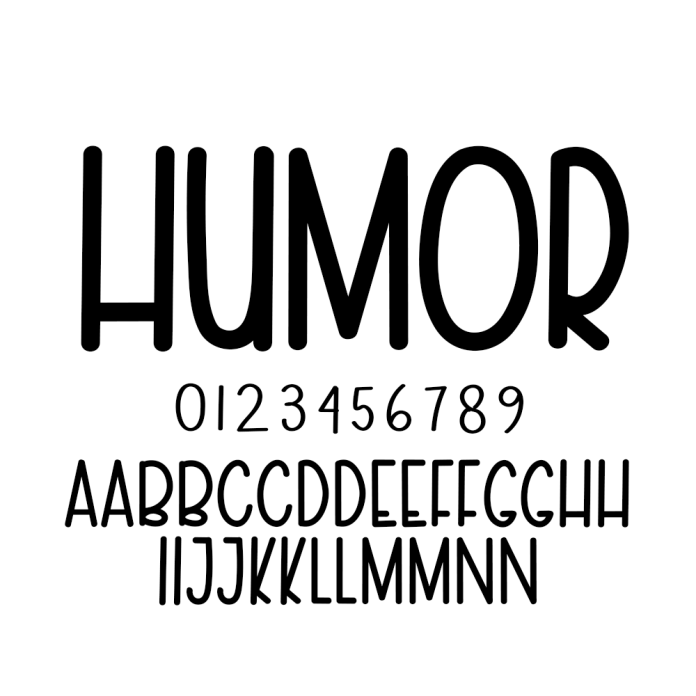
Humor Font is a lovely and timeless handwritten font. It is the best choice for creating eye catching logos, branding and quotes. Every letter has a unique and beautiful touch, which will make your design come alive!